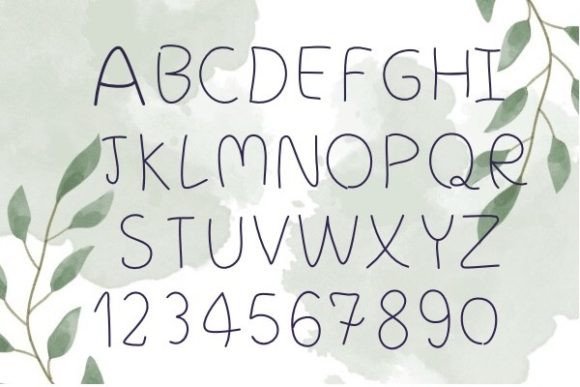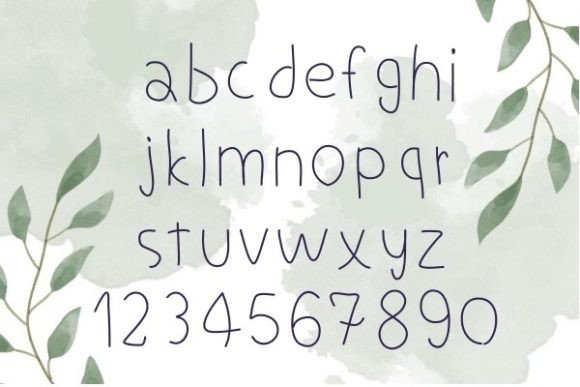
Introduction to Jeda Font
Have you ever stumbled upon a quote on a chalkboard in a charming little café, and immediately felt inspired to capture its essence in your own creative project? That’s exactly what happened to me, and it sparked a quest to find the perfect font to replicate that authentic, handwritten look. After scouring through design resources, I finally discovered the Jeda Font – a quirky and endearing handwritten font that’s perfect for adding a personal touch to your designs.
The Jeda Font is a high-quality, free download that’s available for designers to use in their projects. Its transparent background and realistic feel make it an ideal choice for creating chalkboard quotes, teaching materials, and other design elements that require a touch of personality. With the Jeda Font, you can bring a sense of warmth and authenticity to your designs, making them truly stand out from the crowd.
Key Features of Jeda Font
- Unique, modern design with a transparent background, allowing for seamless integration with any design.
- Perfect for use in logos, branding, and other design elements, thanks to its clean and minimalist aesthetic.
Honest Review: Jeda Font
I recently stumbled upon the Jeda Font, and I must say it’s a fantastic addition to my design resource library. The high quality of this font is evident, making it perfect for any creative project.
- ✨ The Jeda Font has a modern and sleek design that’s sure to elevate any design project.
- ✨ The transparent background makes it easy to customize and combine with other design elements.
- ⚠️ The font’s design may not be as versatile as some other fonts on the market, making it more suited for specific design styles.
Overall, I’m impressed with the Jeda Font and would highly recommend it to designers looking for a high-quality, free font for their creative projects.
For the best results, use Jeda Font in combination with a high-contrast background. This will help your text stand out and make it easier to read. You can also experiment with different font sizes and styles to create a unique look.
The Jeda Font is perfect for creating eye-catching social media graphics, presentations, and documents. Its transparent background makes it ideal for overlaying text on images or graphics, and its high-quality design makes it perfect for professional-looking designs.